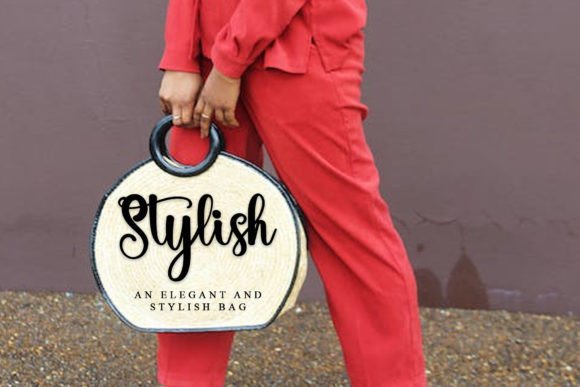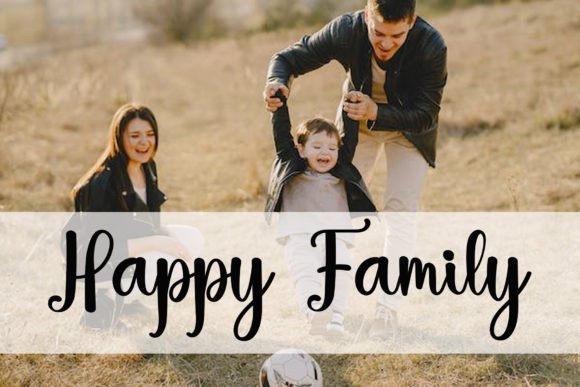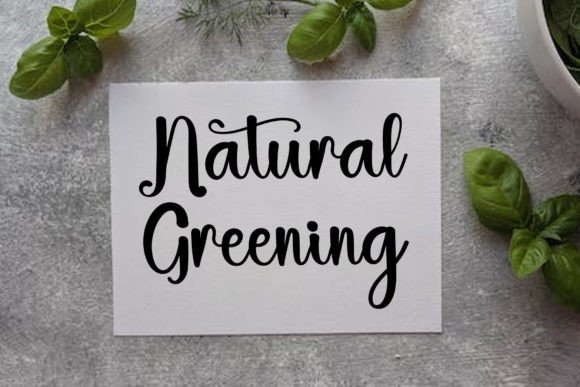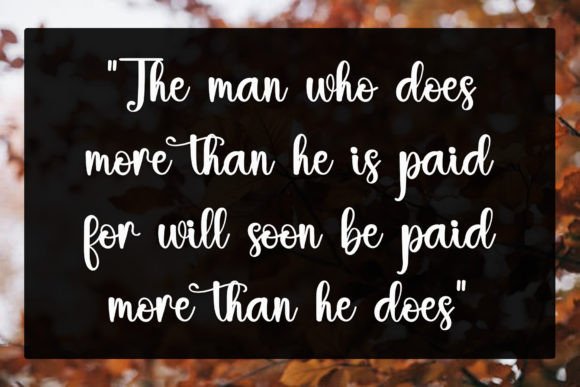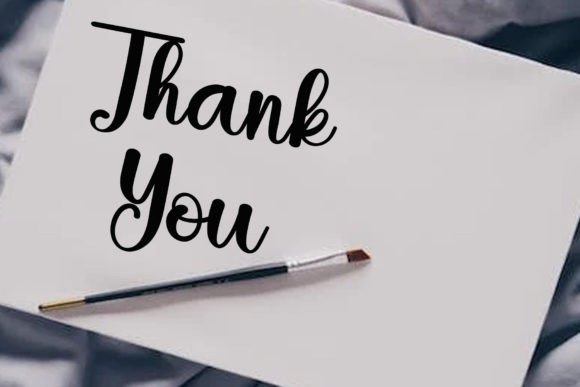
The Quest for the Perfect Font: Discovering Firstime
I’ll never forget the time I was working on a project for a client who wanted a elegant, yet modern feel. I had spent hours scouring the internet for the perfect font, but nothing seemed quite right. That was until I stumbled upon Firstime, an exquisite handwritten font that instantly caught my eye. In this article, I’ll share my experience with Firstime, its features, and how to make the most of it in your designs.
First Impressions: A Love Affair with Firstime
Firstime is a true gem, masterfully designed to become a favorite among designers, crafters, and creative hobbyists. It strikes the perfect balance between classy calligraphic influences and a contemporary feel, making it perfect for a wide range of projects.
What I Love About Firstime ✨
- 💫 Exquisite handwritten design with a touch of elegance
- ✅ Perfect blend of classic and modern elements
- 🌈 Highly versatile, suitable for various design projects
- 📚 Extensive character set, including OpenType features and glyphs
- ⚠️ Some users may find the font a bit too ornate for very casual projects
- 🤔 Limited availability of certain stylistic alternates in older software
The Story Behind Firstime: Designer Inspiration
Firstime was designed by a talented typographer who sought to create a font that would blend the best of traditional calligraphy with modern sensibilities. The result is a font that feels both timeless and fresh, perfect for designers looking to add a touch of elegance to their work.
| Font Name | Firstime Font |
| What makes Firstime unique? | Firstime’s unique blend of classic calligraphic influences and modern sensibilities makes it stand out from other handwritten fonts. |
| Is Firstime suitable for body text? | While Firstime is a beautiful font, it’s best suited for headlines and titles. For body text, a clearer font may be more readable. |